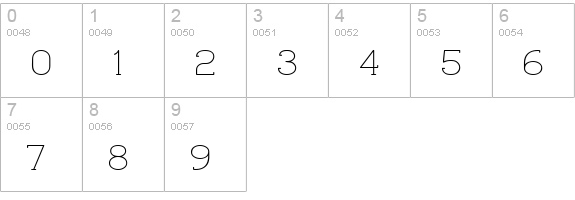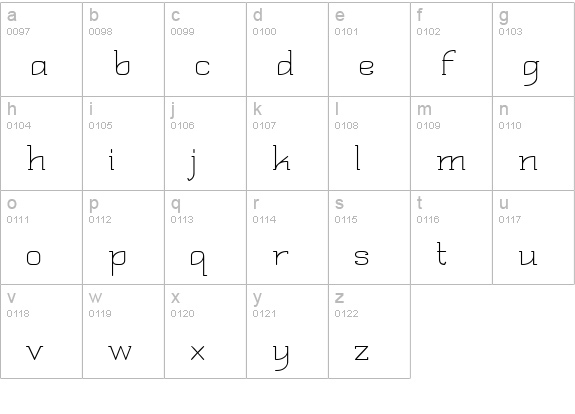
Quadlateral Font Details
Introducing Quadlateral font, a modern and stylish typeface that is perfect for a wide range of design projects. This versatile font features clean lines and sharp angles, giving it a sleek and contemporary look. The Quadlateral font is ideal for creating eye-catching headlines, logos, branding materials, and more. What sets Quadlateral font apart is that it is available for free download at FontsMarket.com. This means that you can easily access this high-quality font without any cost, making it a valuable addition to your font collection. Don't miss out on the opportunity to enhance your designs with the sophisticated and unique Quadlateral font. Download it today and start creating stunning visuals that will captivate your audience.